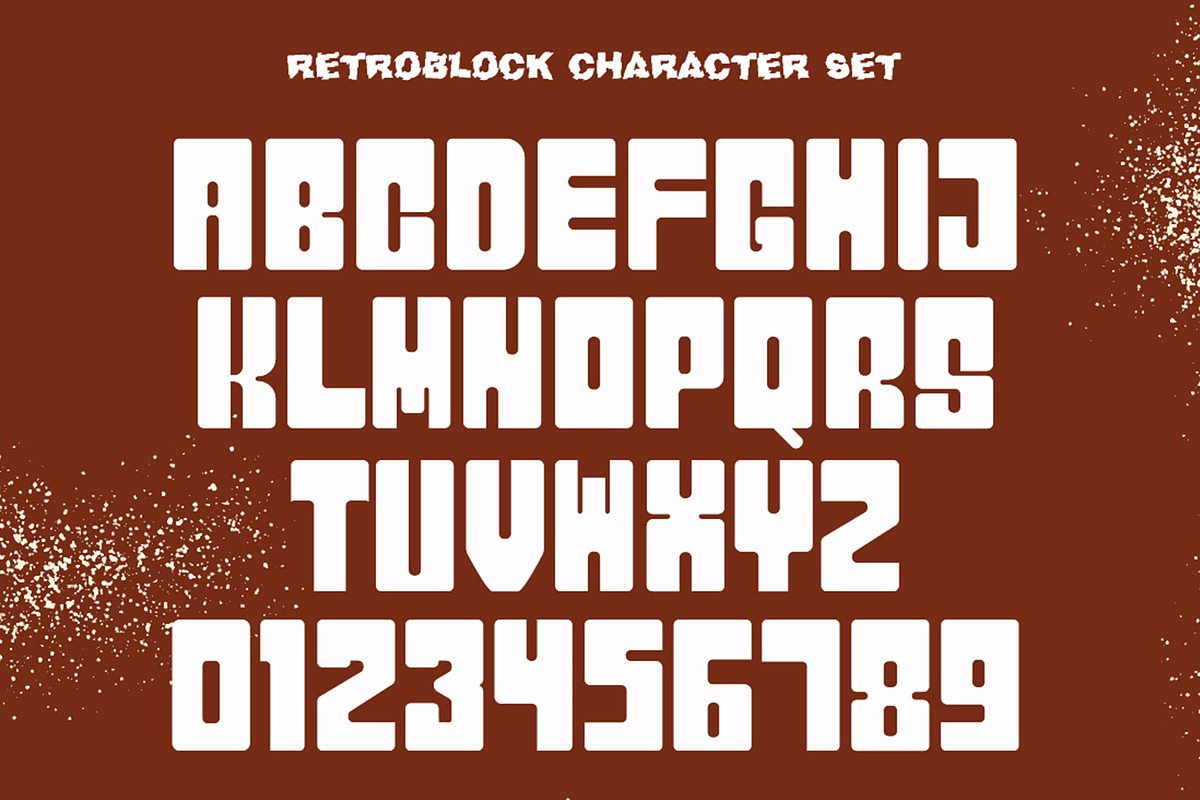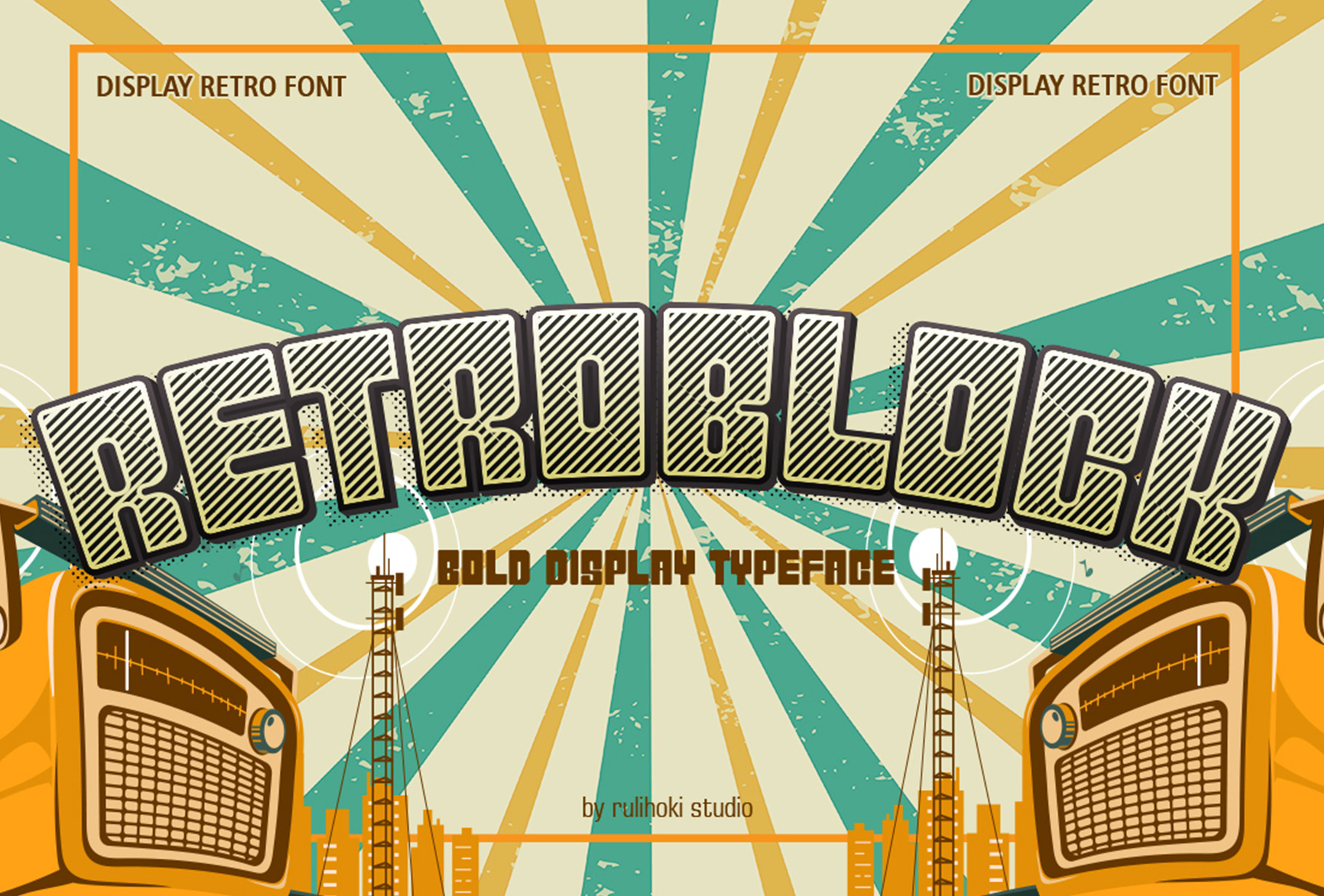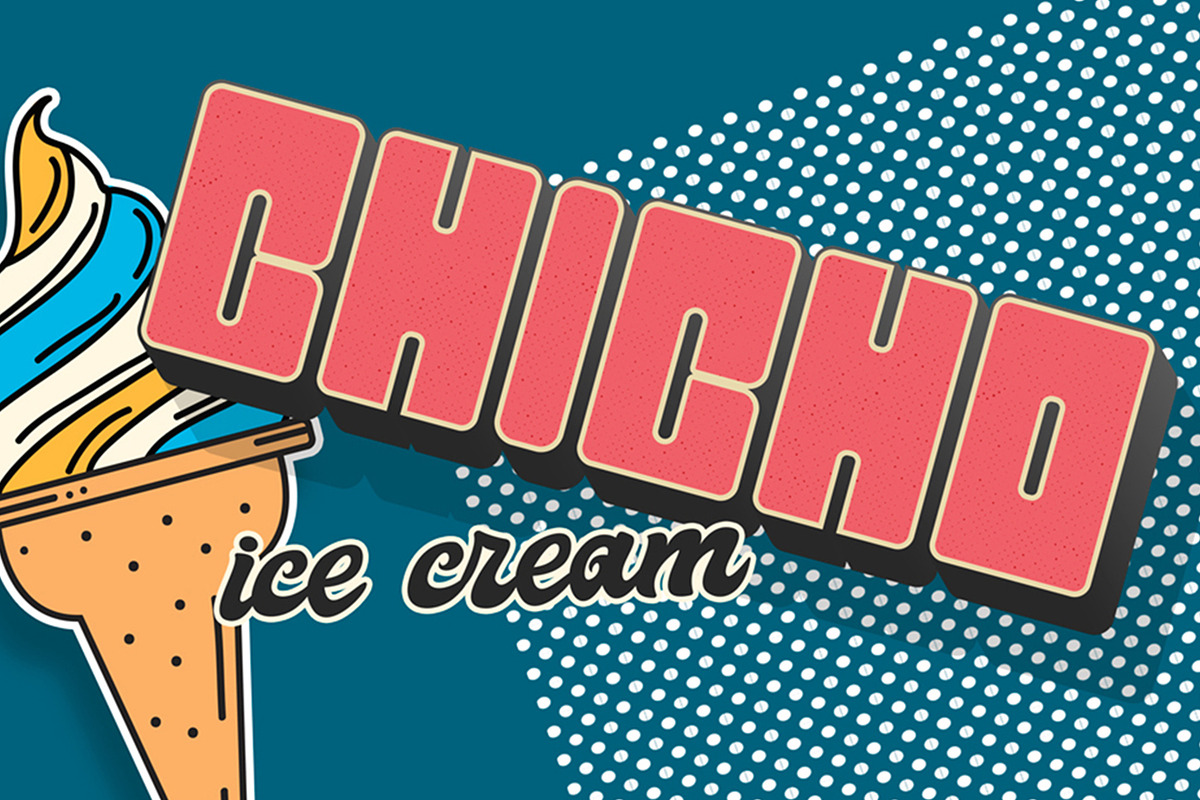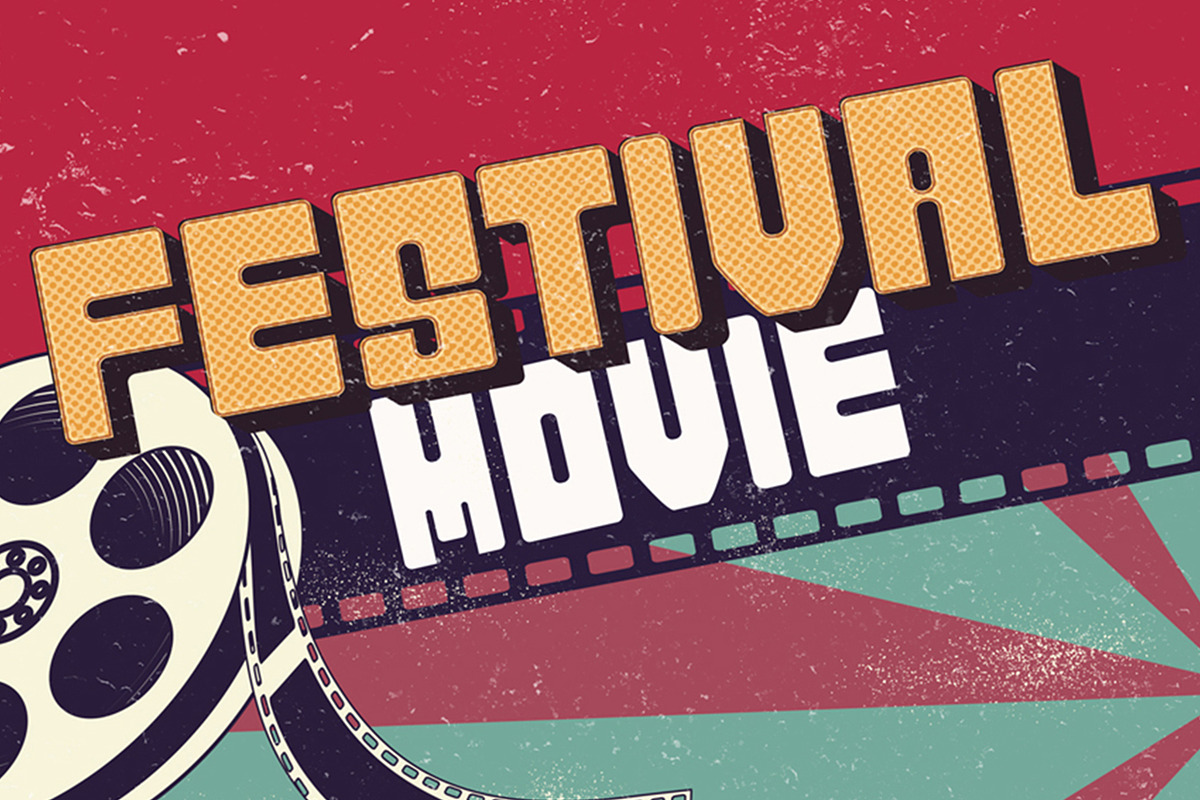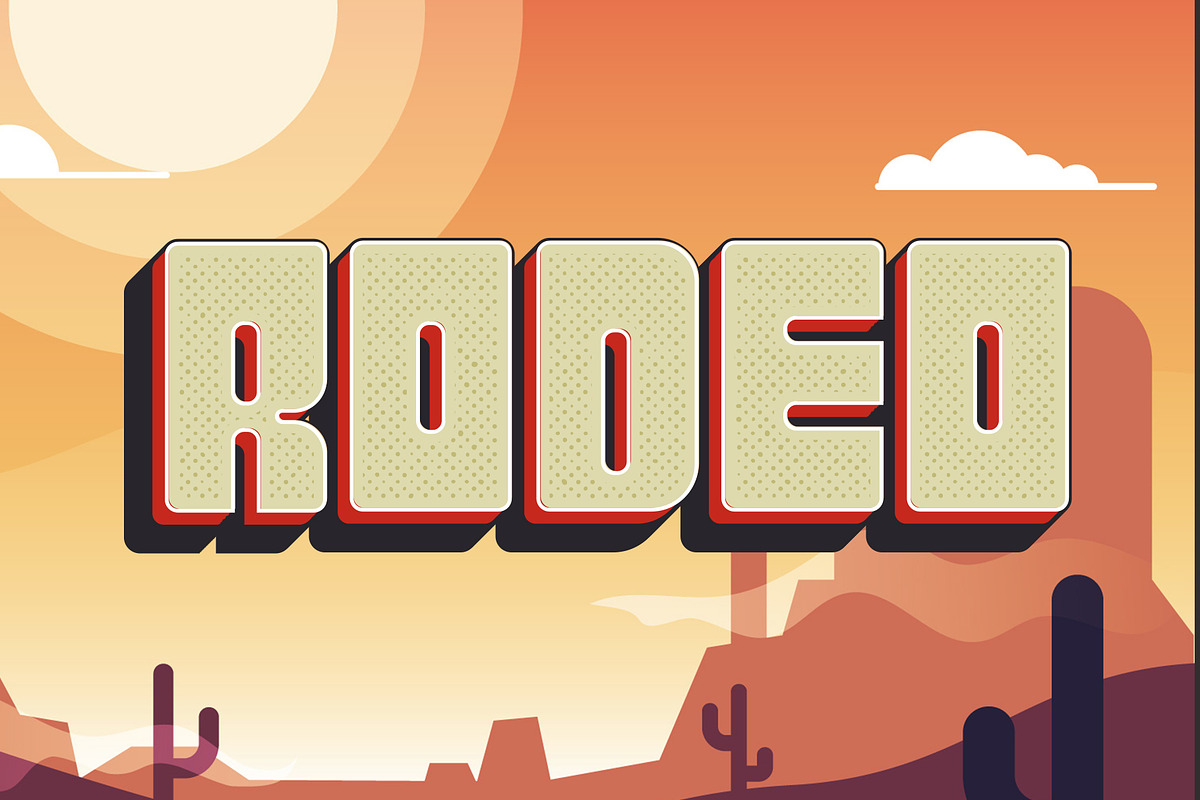
Retroblock | Bold Retro Typeface
Retroblock is a bold spectacular display font. This font reads as strong, confident, and dynamic and can add tons of nostalgic character to your designs. It will add an incredibly joyful touch to your designs. Add this beautiful display font to each of your creative ideas and notice how it makes them stand out!
Retroblock is very suitable for illustrations, quotes, branding, logos, book covers, packaging, and many others. It’s ideal for headlines, titles, signage, branding and strong designs that require a big impact. Its rounded ink traps and softened edges make it great for use in print or pixels.